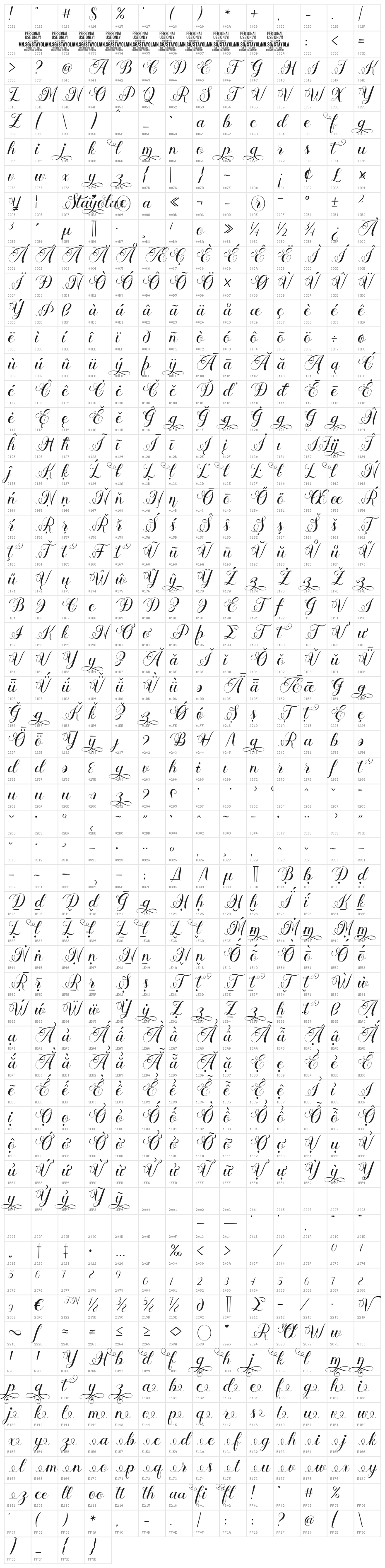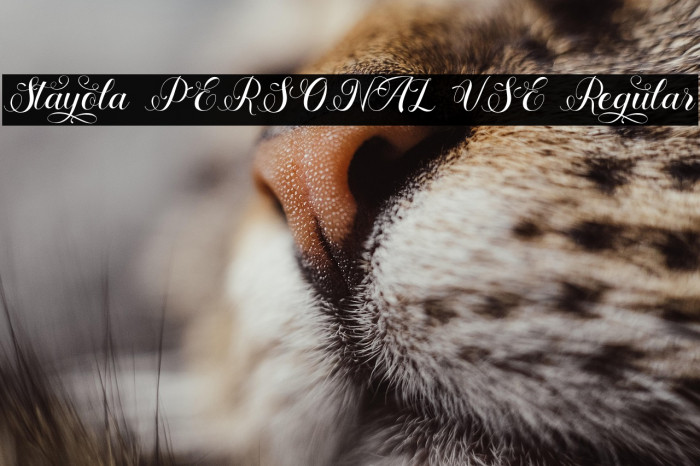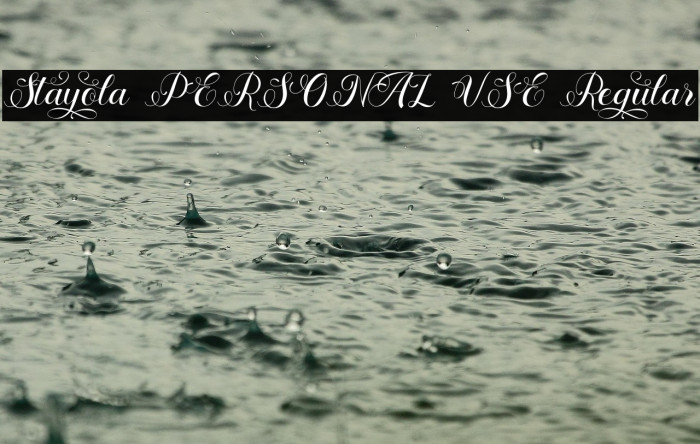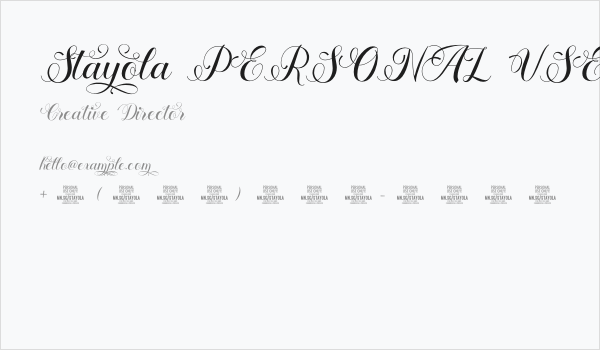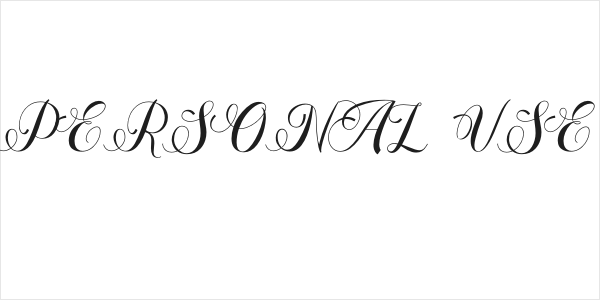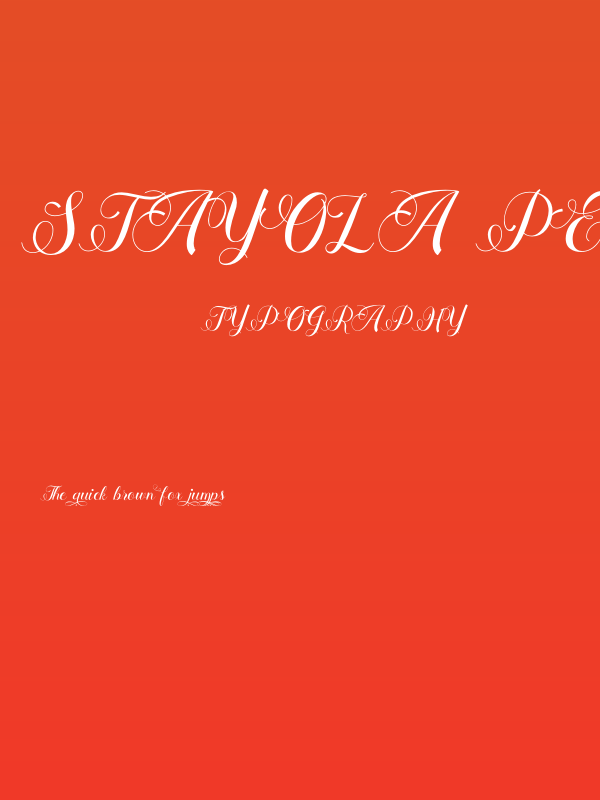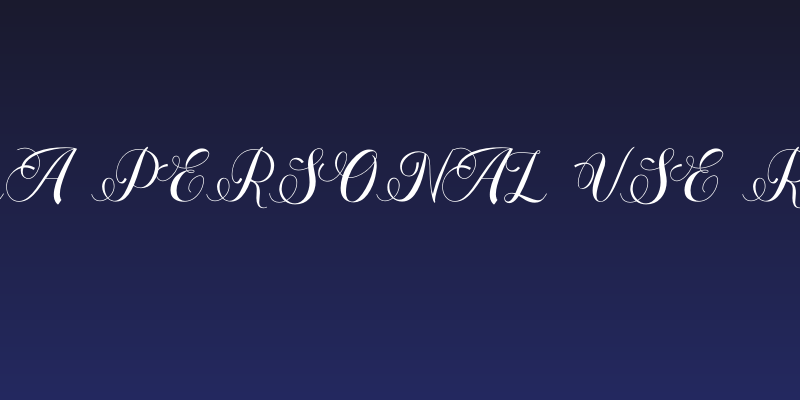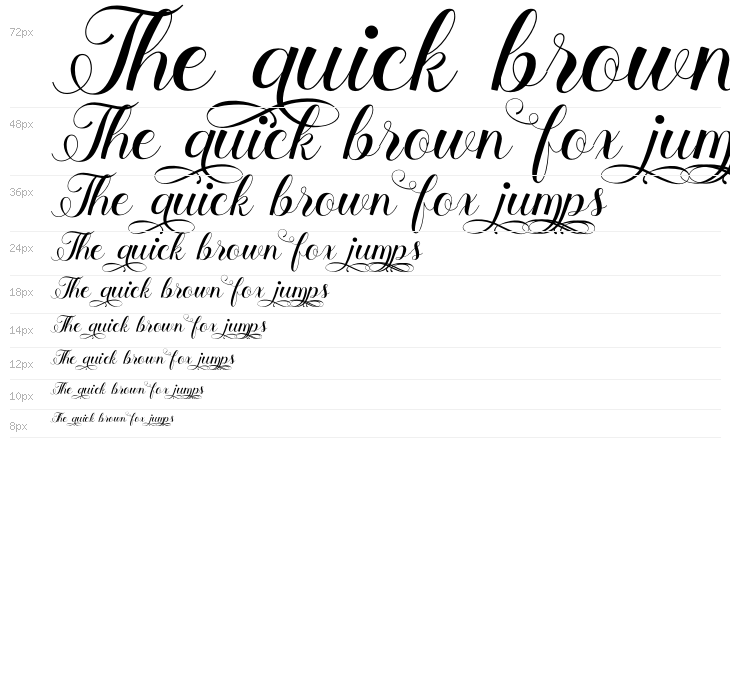
Stayola PERSONAL USE Regular Font
Stayola PERSONAL USE Regular Description
This elegant script font features a flowing, cursive style with intricate swashes and flourishes. The uppercase letters are adorned with decorative loops, giving them a sophisticated and ornate appearance. The lowercase letters maintain a smooth, connected flow, enhancing the font's graceful aesthetic. The numerals and special characters are designed with the same attention to detail, ensuring consistency throughout. This font exudes a sense of luxury and refinement, making it ideal for formal and decorative applications.
Use CaseLogos, Headlines, Invitations
Proposed ProjectsIdeal for wedding invitations, luxury branding, elegant stationery, and decorative headlines.